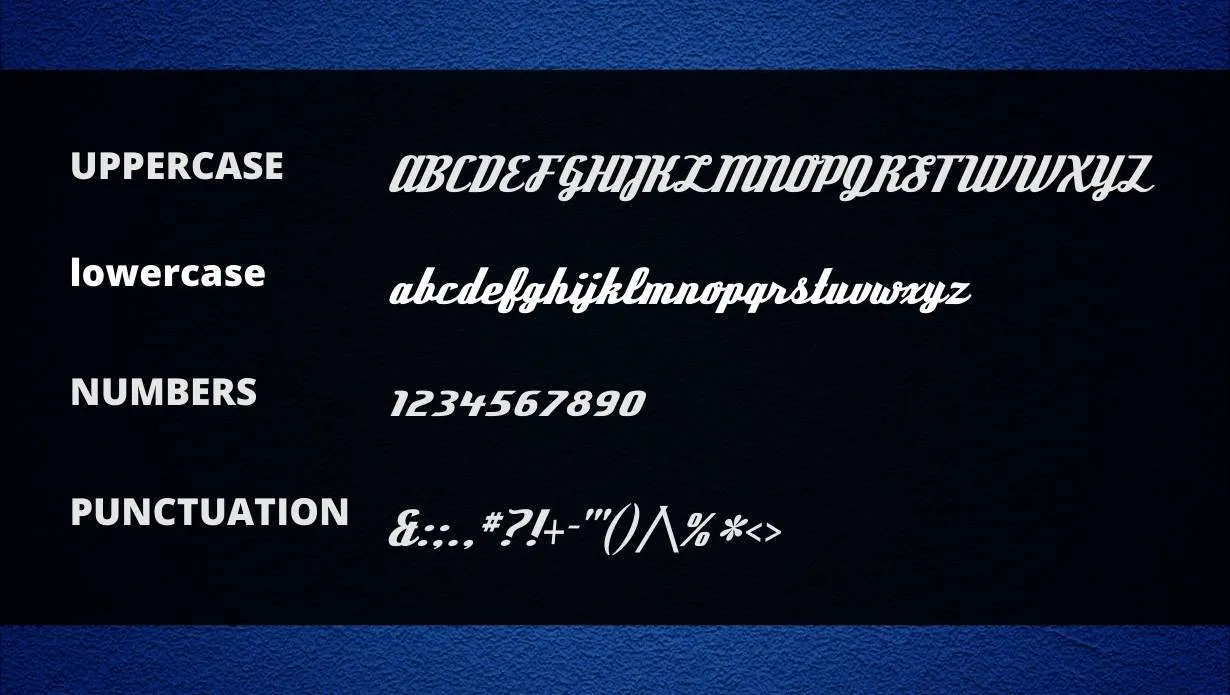
Introducing Deftone Stylus Font. This typeface is crafted and published by Typodermic Fonts. They have created a lot of well-known typefaces. They were inspired by auto garage signs from late 1940 to 1950. This typeface belongs to the Script family.
There are various fields where it is found helpful like advertisements, Social media posts, and banners. It is very much similar to Almost Friday Font.
- Deftone Stylus Regular